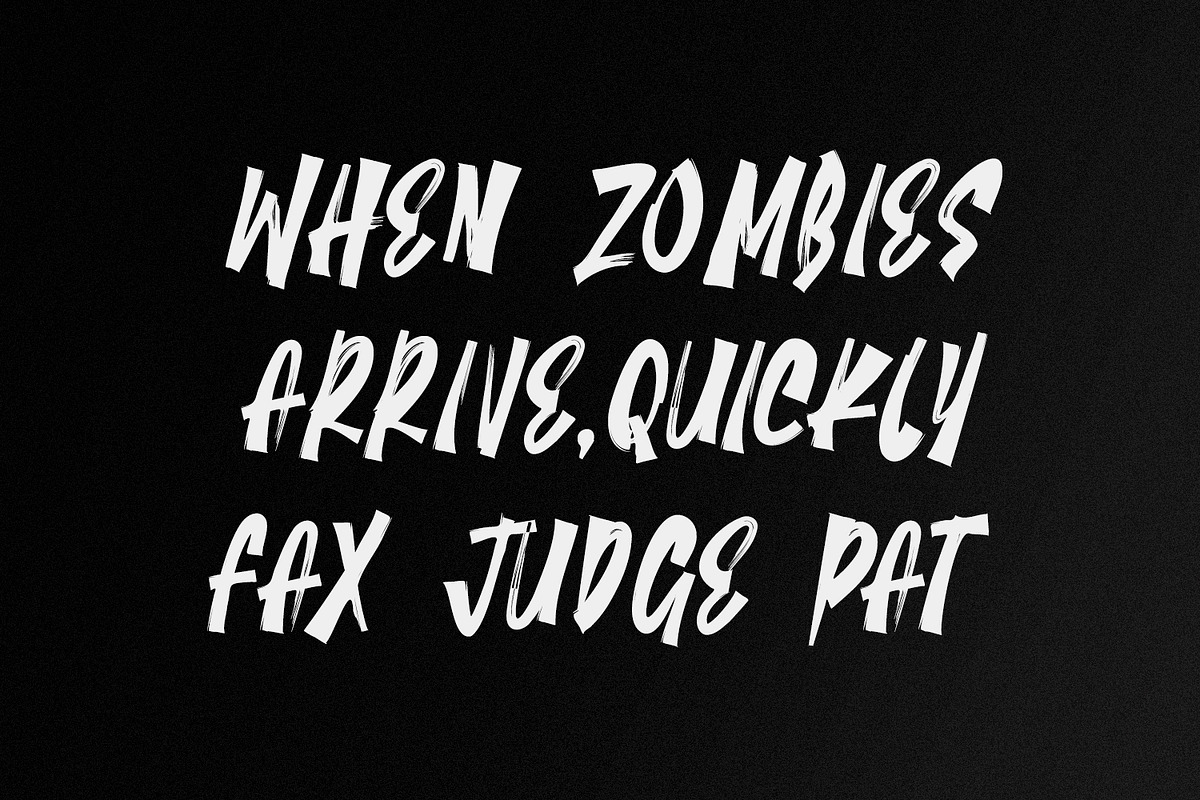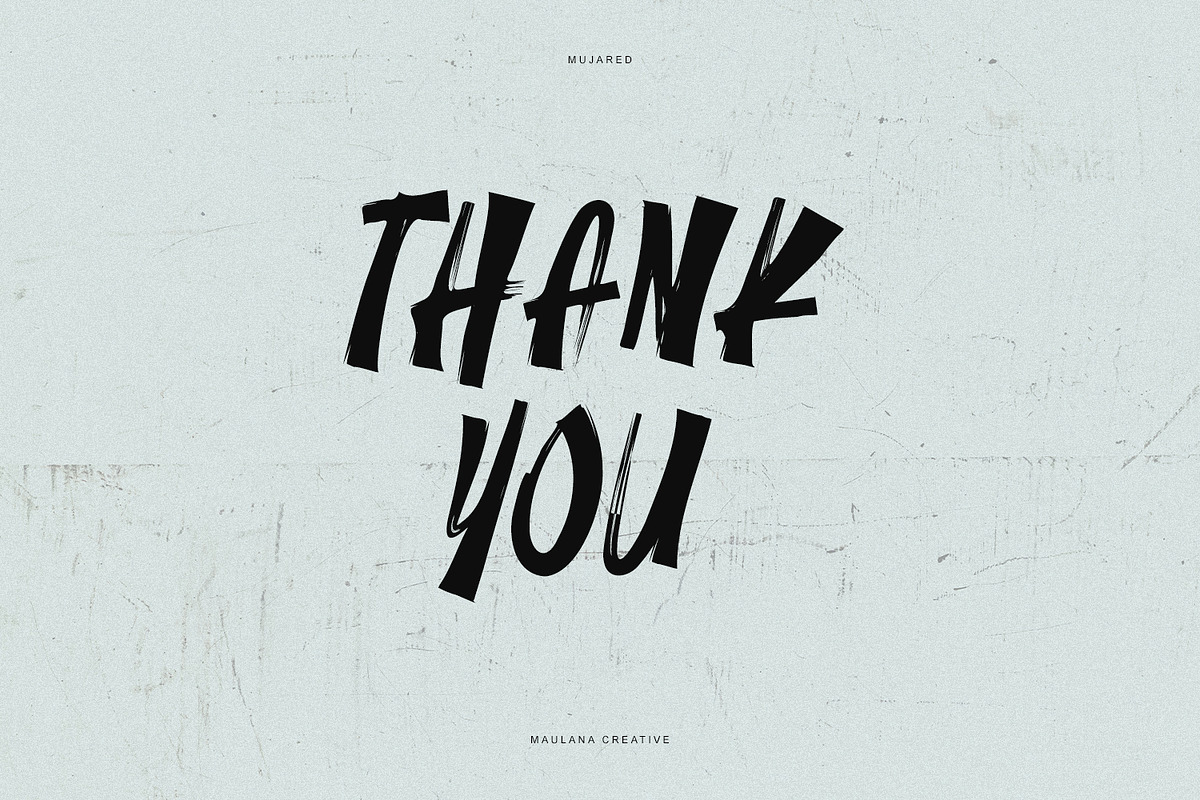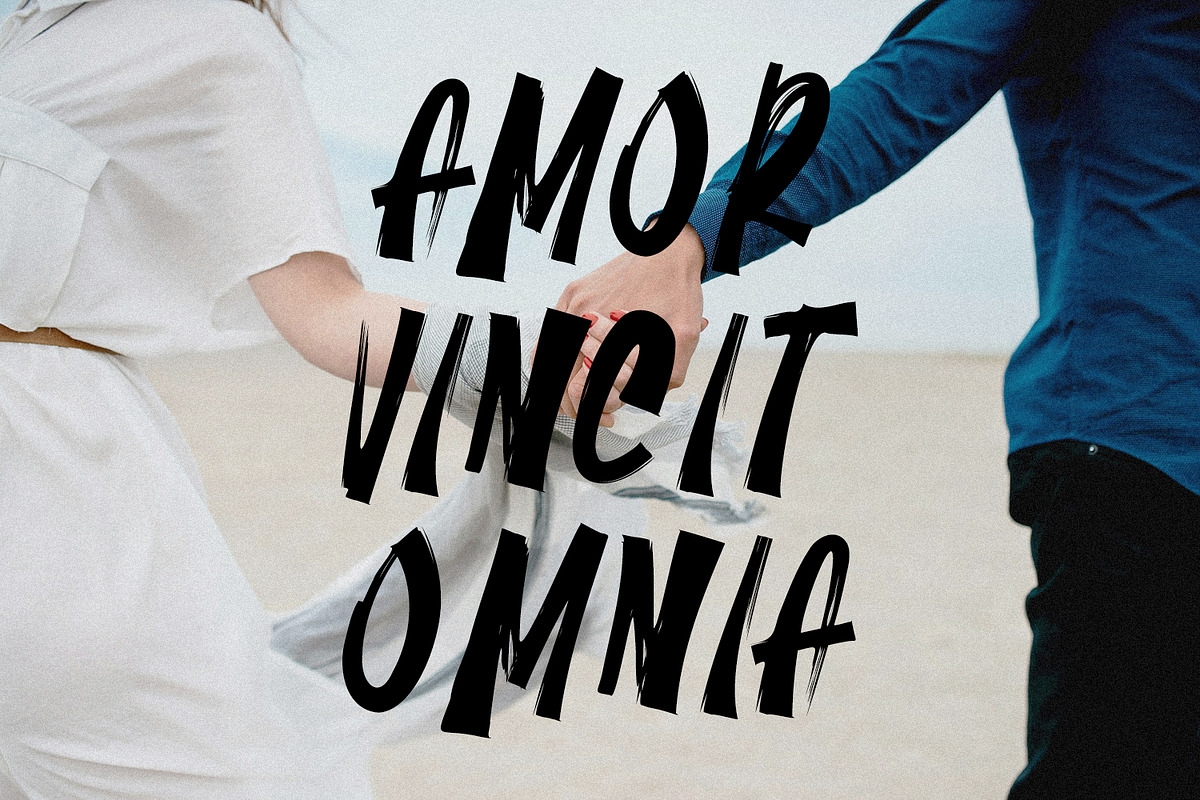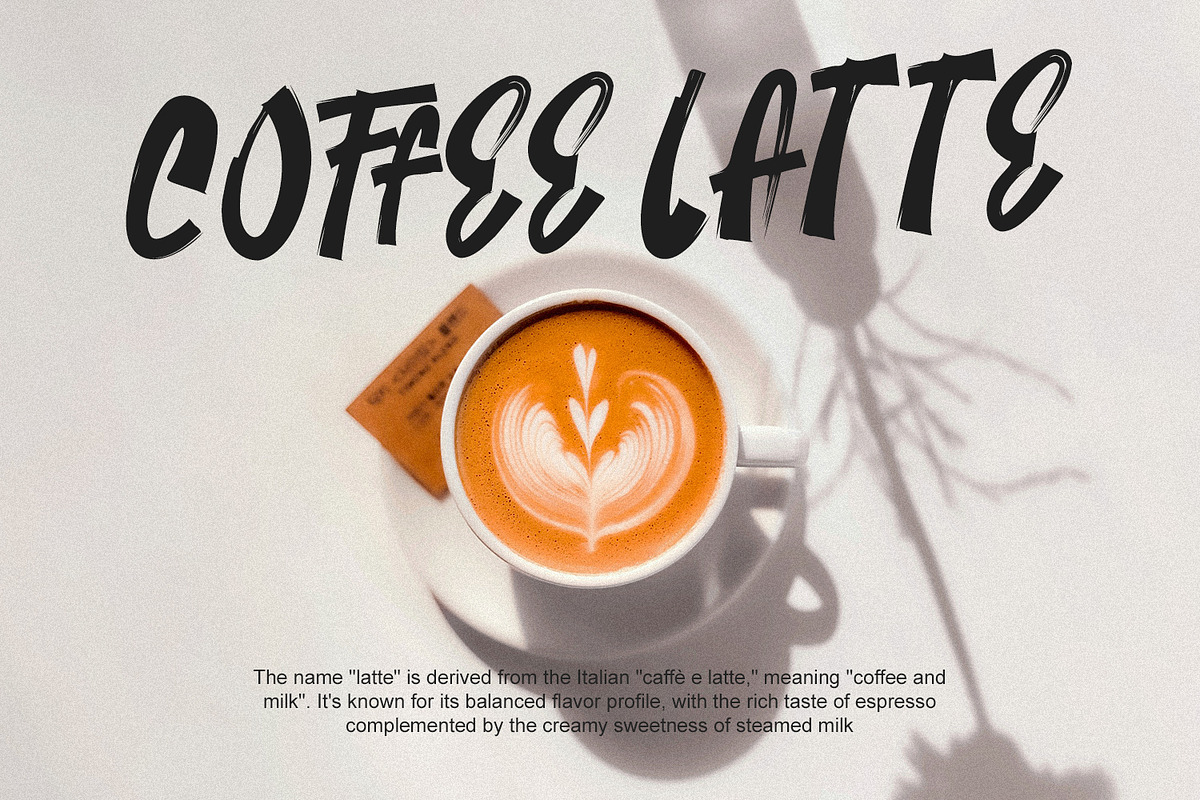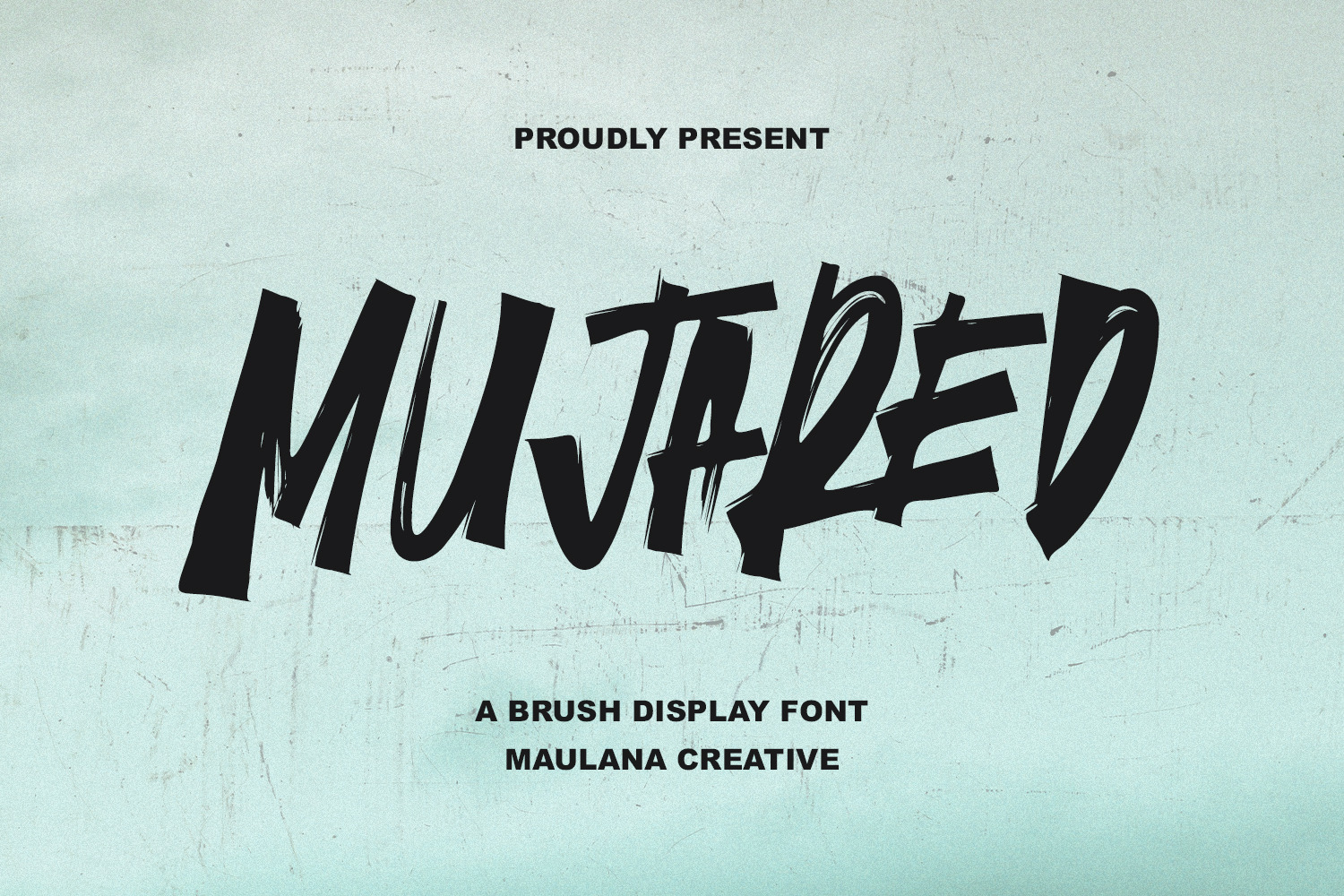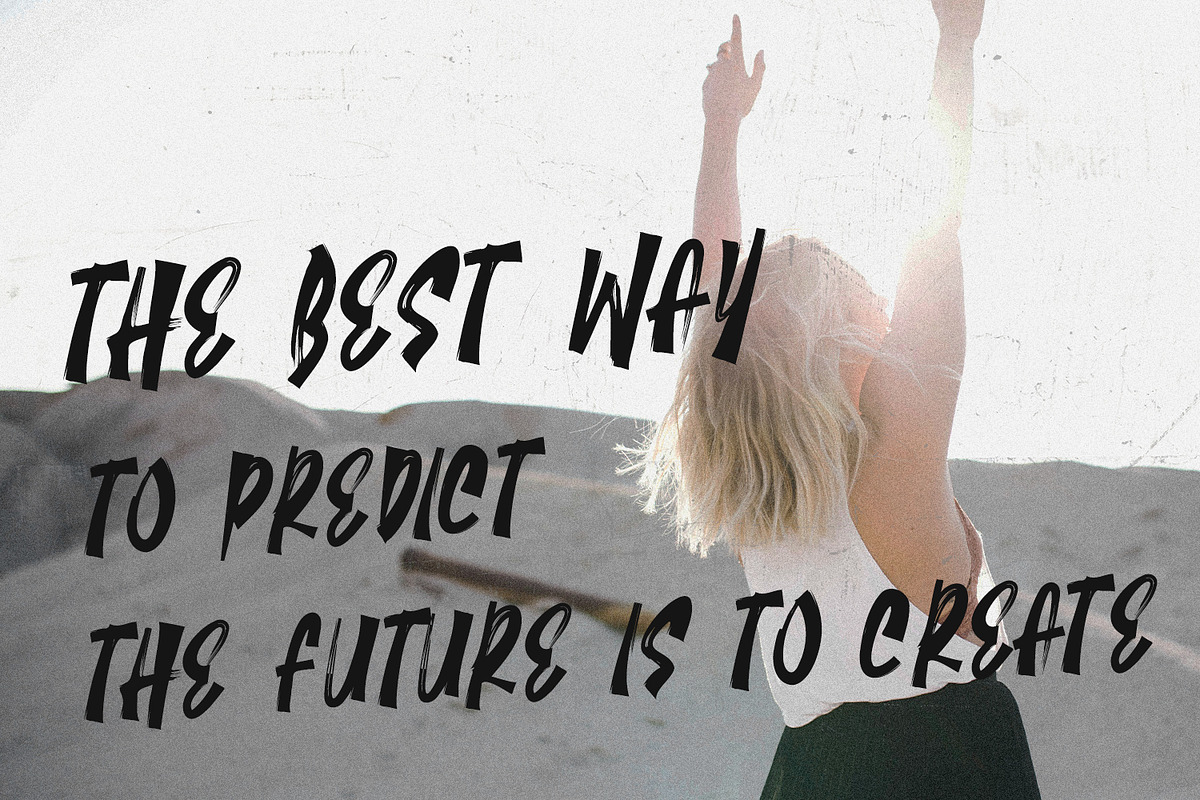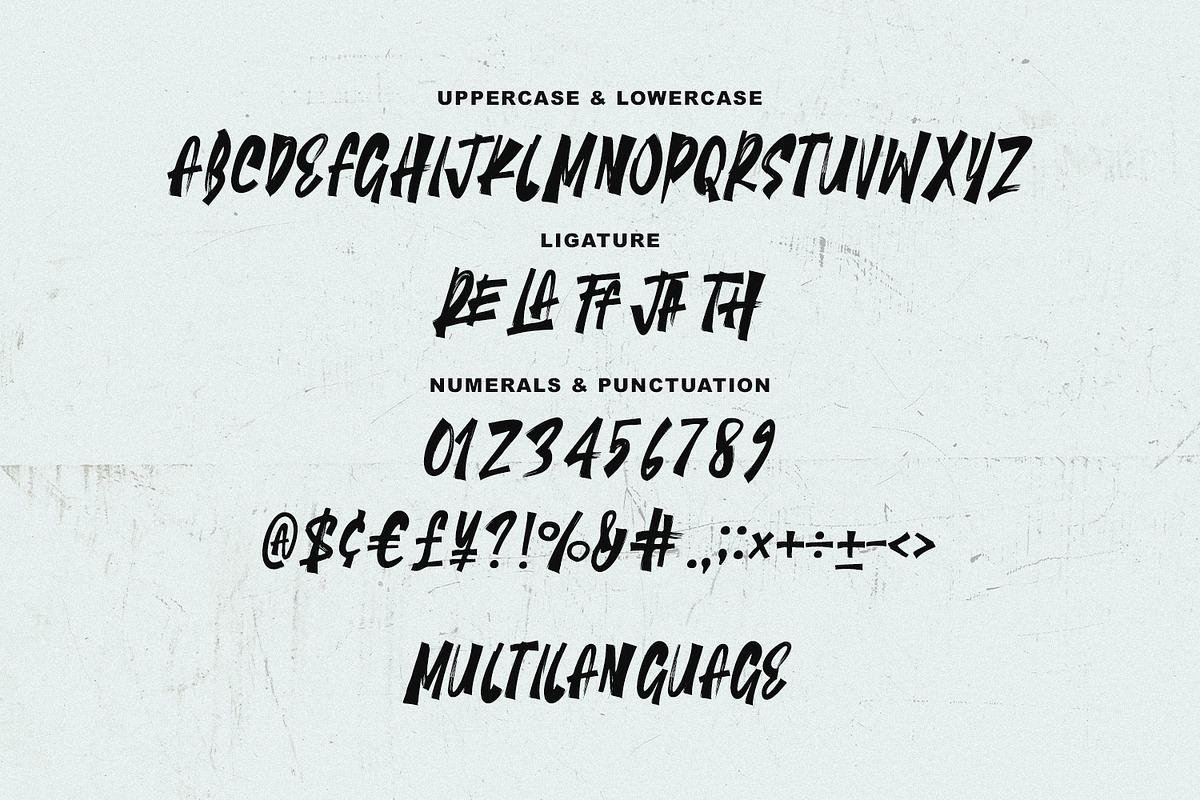
Mujared Brush Font
Mujared is a brush display handwritten font. With bold stroke, fun character with a bit of ligatures. To give you an extra creative work. Mujared font support multilingual more than 100+ language. This font is good for logo design, Social media, Movie Titles, Books Titles, a short text even a long text letter and good for your secondary text font with sans or serif. Make a stunning work with Mujared font.